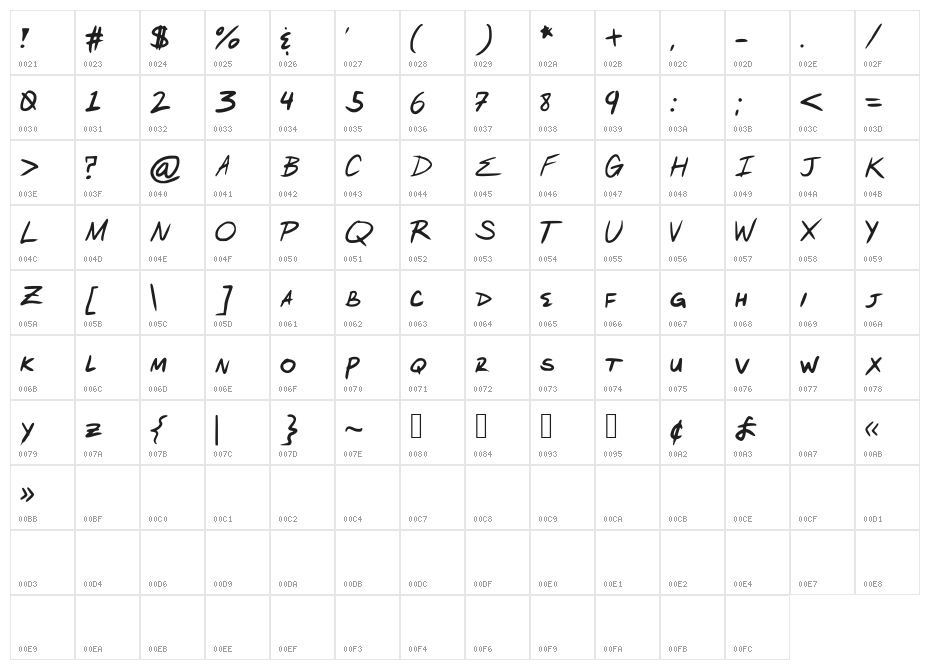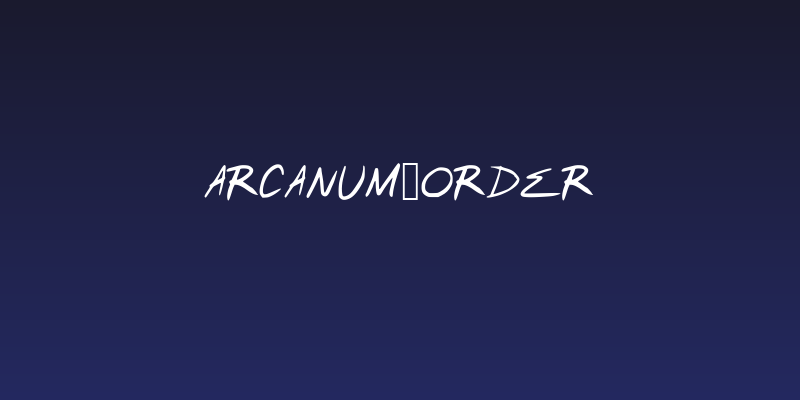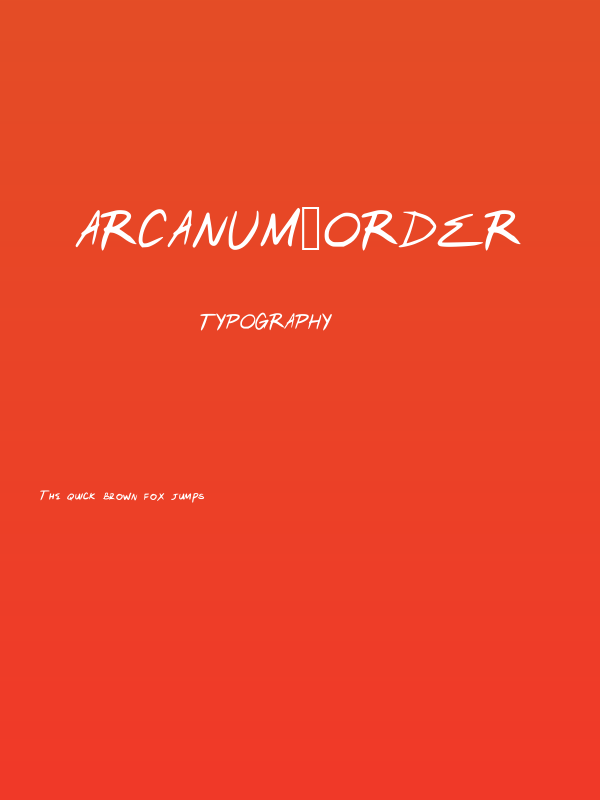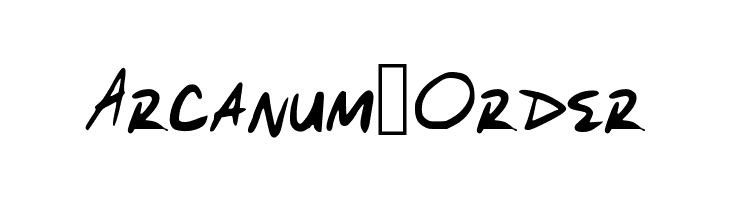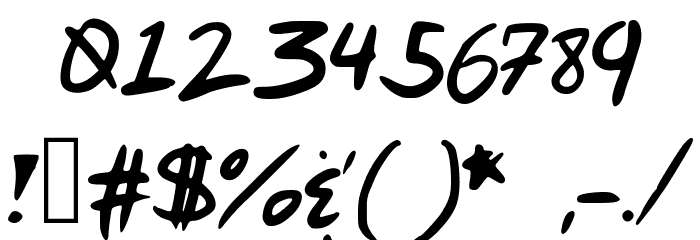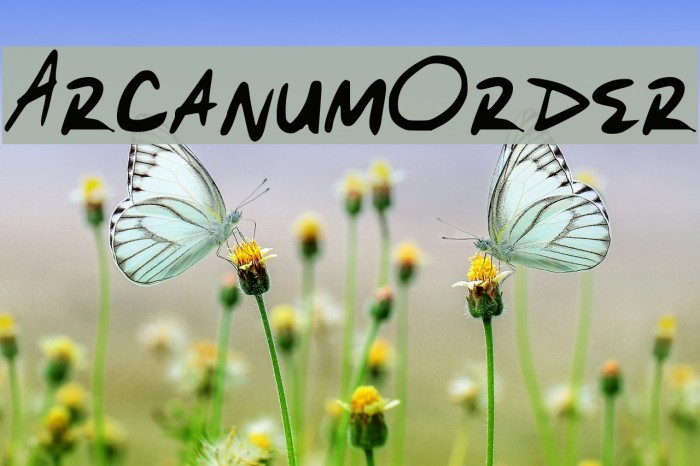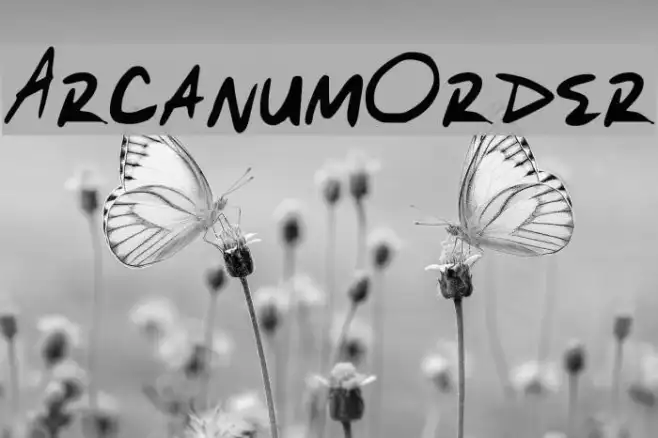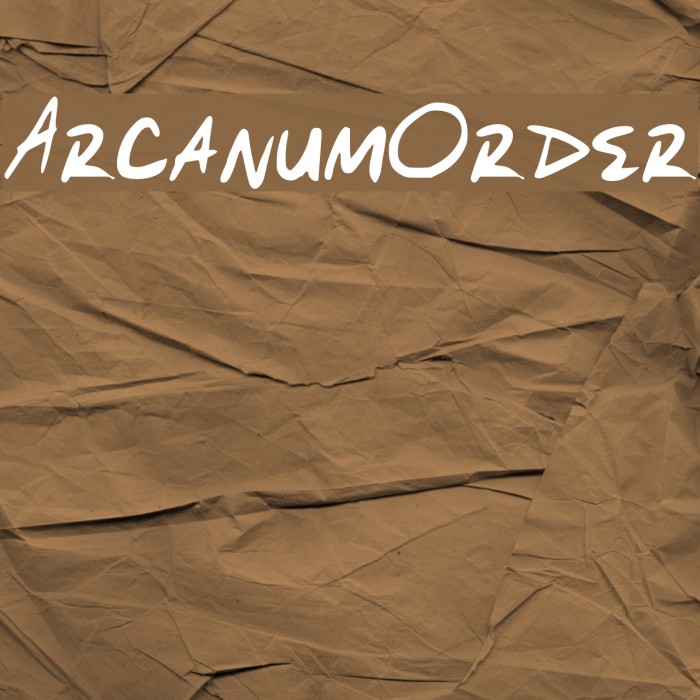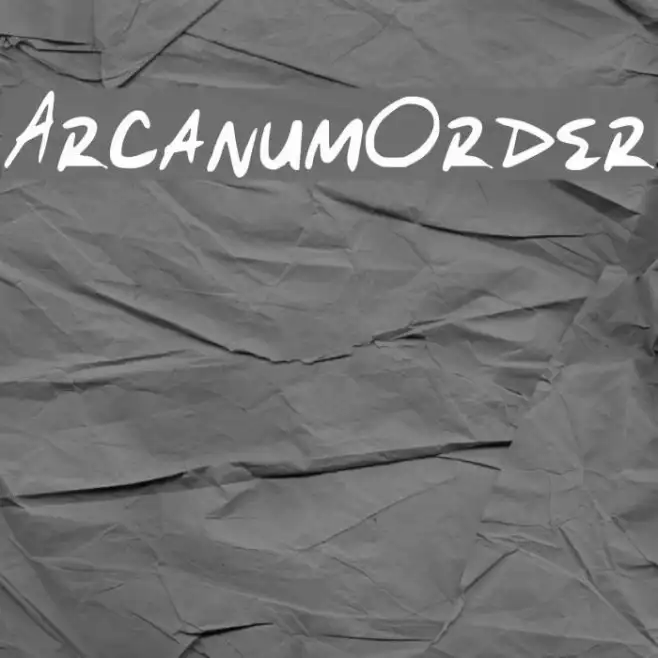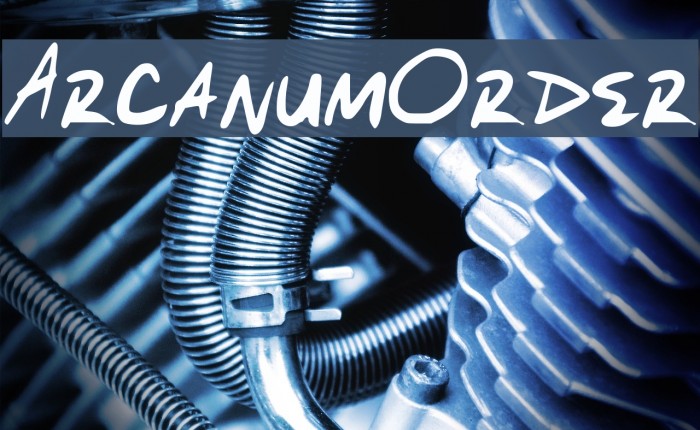
Arcanum_Order Font
Arcanum_Order Description
This font exhibits a dynamic and energetic style, characterized by its handwritten appearance. The letters are slightly slanted, giving a sense of motion and fluidity. The uppercase and lowercase letters maintain a consistent style, with bold strokes and a casual, informal feel. The numbers and special characters follow the same aesthetic, ensuring uniformity across all characters. The font's playful and expressive nature makes it suitable for creative projects that require a personal touch.